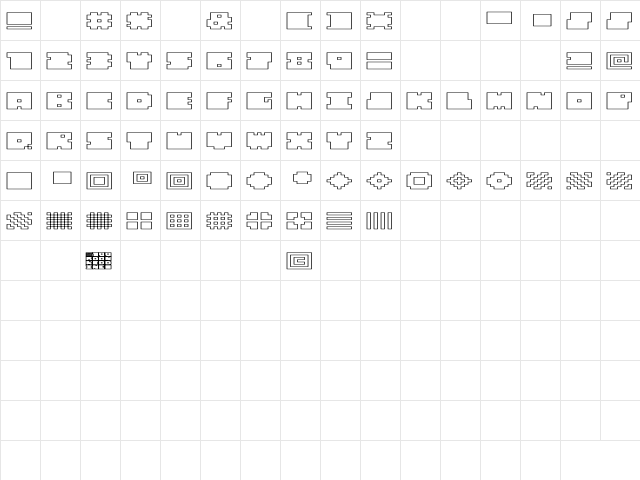
QUBE HOLLOW WIDE REGULAR
Design Context for QUBE HOLLOW WIDE Typeface
QUBE HOLLOW WIDE takes a measured approach to typography — its balanced proportions and neutral character make it a reliable workhorse for both digital and print work.